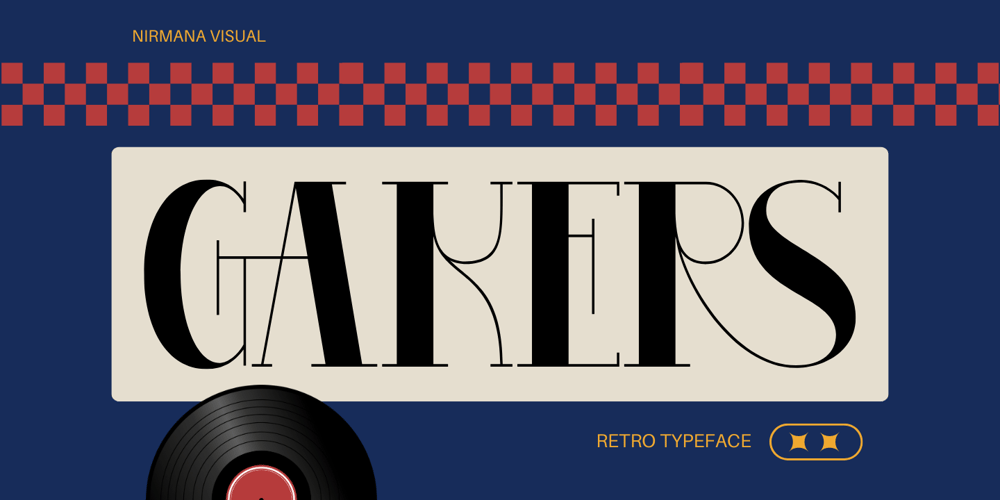
Gakers Retro
Gakers Retro font
Gakers Retro Font Family was designed by Sigit Dwipa and published by Nirmana Visual. Gakers Retro contains 1 styles and family package options. Gakers Retro Font offers beautiful typographic harmony for a diversity of design projects, including logos & branding, social media posts, advertisements & product designs.